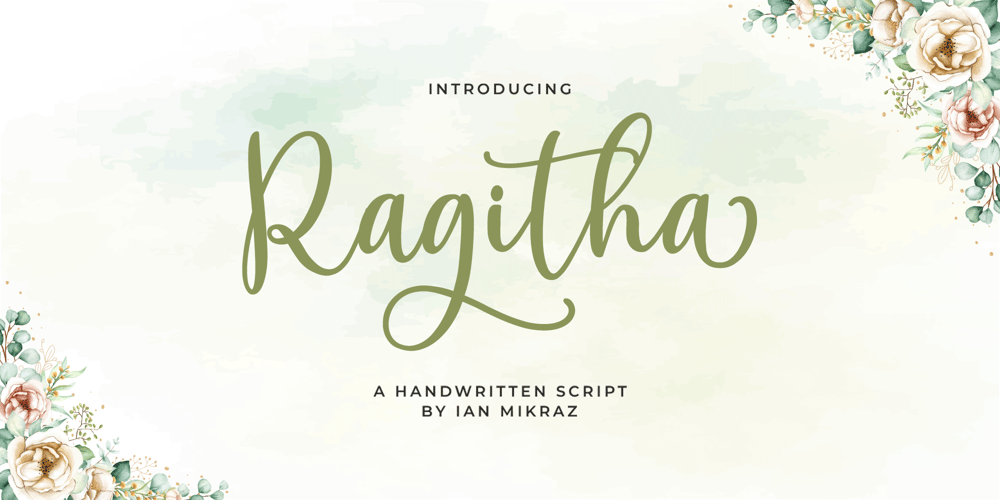
Ragitha
Ragitha font
Ragitha Font Family was designed by Ian Mikraz and published by IanMikraz Studio. Ragitha contains 1 styles and family package options. Meet Ragitha, the friendly and casual handwritten script font that’s here to infuse your projects with a touch of warmth and personality. This typeface is like a handwritten note from a dear friend, delivering a sense of approachability and genuine charm to your designs. Its versatility makes it perfect for a wide range of creative applications.Ragitha’s flowing and slightly imperfect lines give it a handmade quality, making it ideal for branding, invitations, social media graphics, and any project that calls for a personal touch. Whether you’re crafting a heartfelt message or a whimsical design, Ragitha’s elegant yet down-to-earth style is ready to complement your creativity. Choose Ragitha for your next project, and watch your designs come to life with a friendly and approachable vibe.